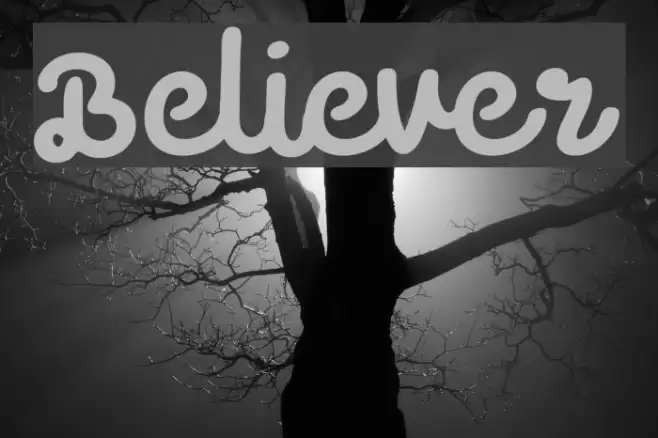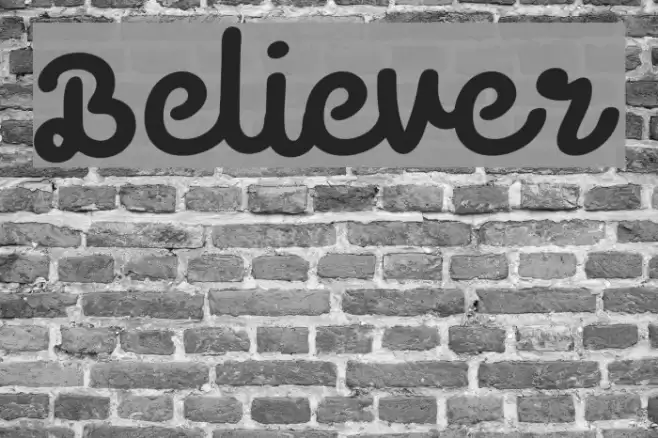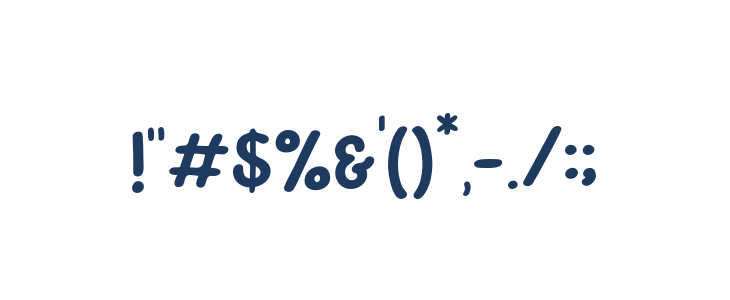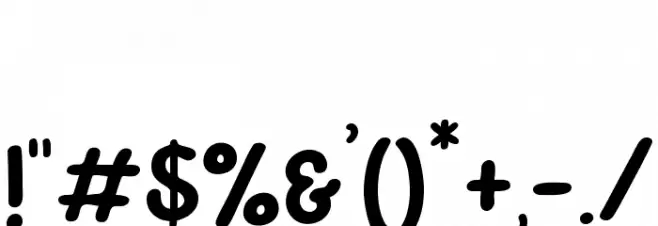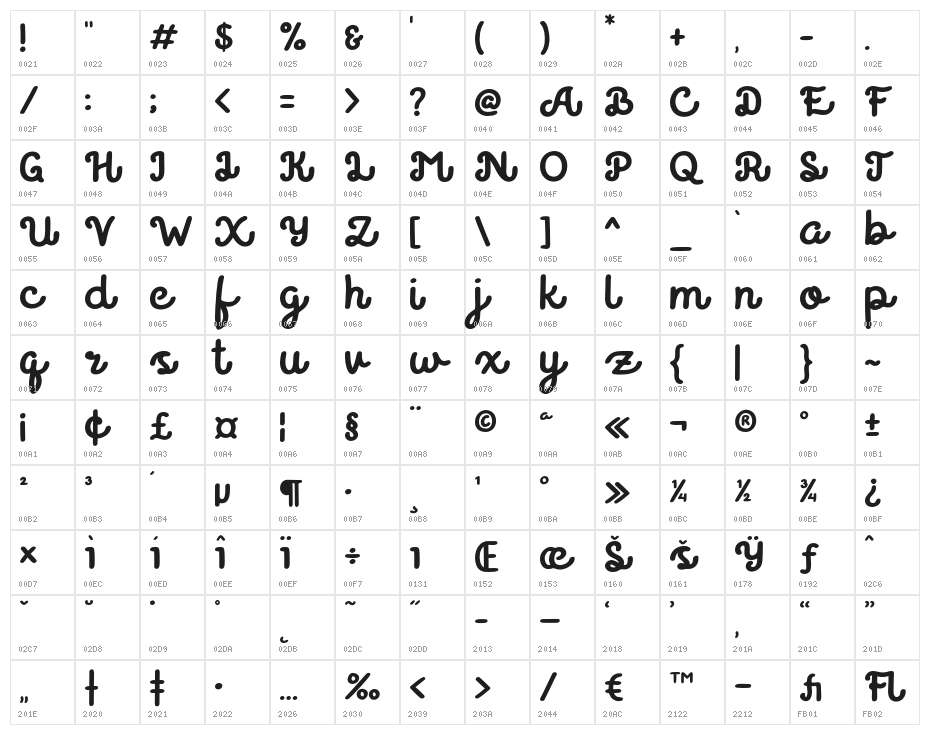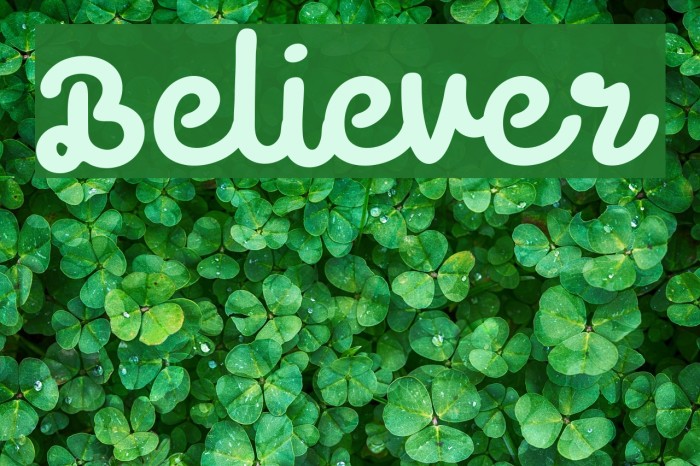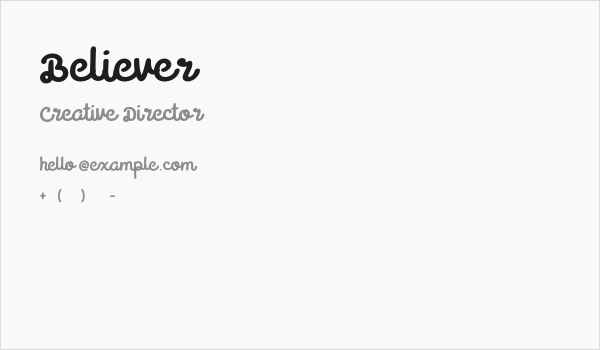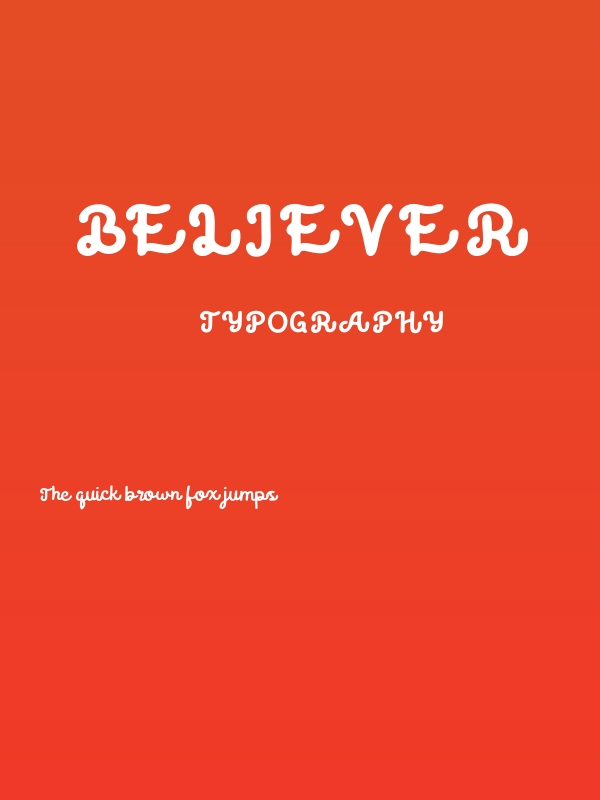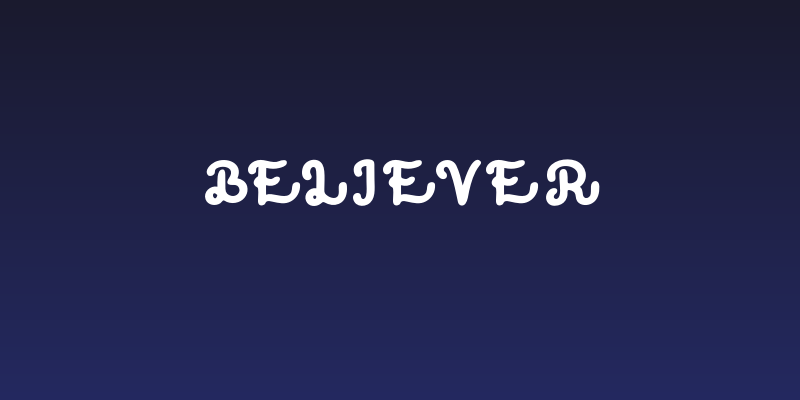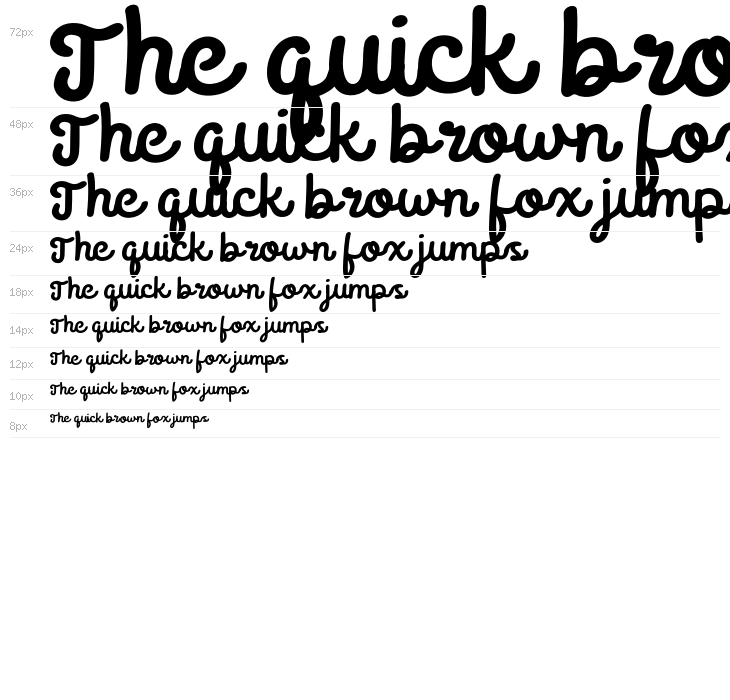
Believer Font
Believer Description
This font features a playful and whimsical script style with a bold presence. The characters are interconnected, creating a flowing and cohesive look. The uppercase letters are consistent in height, while the lowercase letters maintain a smooth and rounded appearance. The font includes a full set of numerals and a variety of special characters, making it versatile for different uses. The strokes are thick, giving it a strong visual impact, and the overall design is both modern and decorative, suitable for creative projects.
A bold, playful script font with interconnected characters and a modern decorative style from Uncategorized fonts.
- Proposed Projects: Ideal for branding, invitations, greeting cards, and playful design projects.
- Overall Style: Modern, Decorative
- Use Case: Logos, Headlines, Invitations